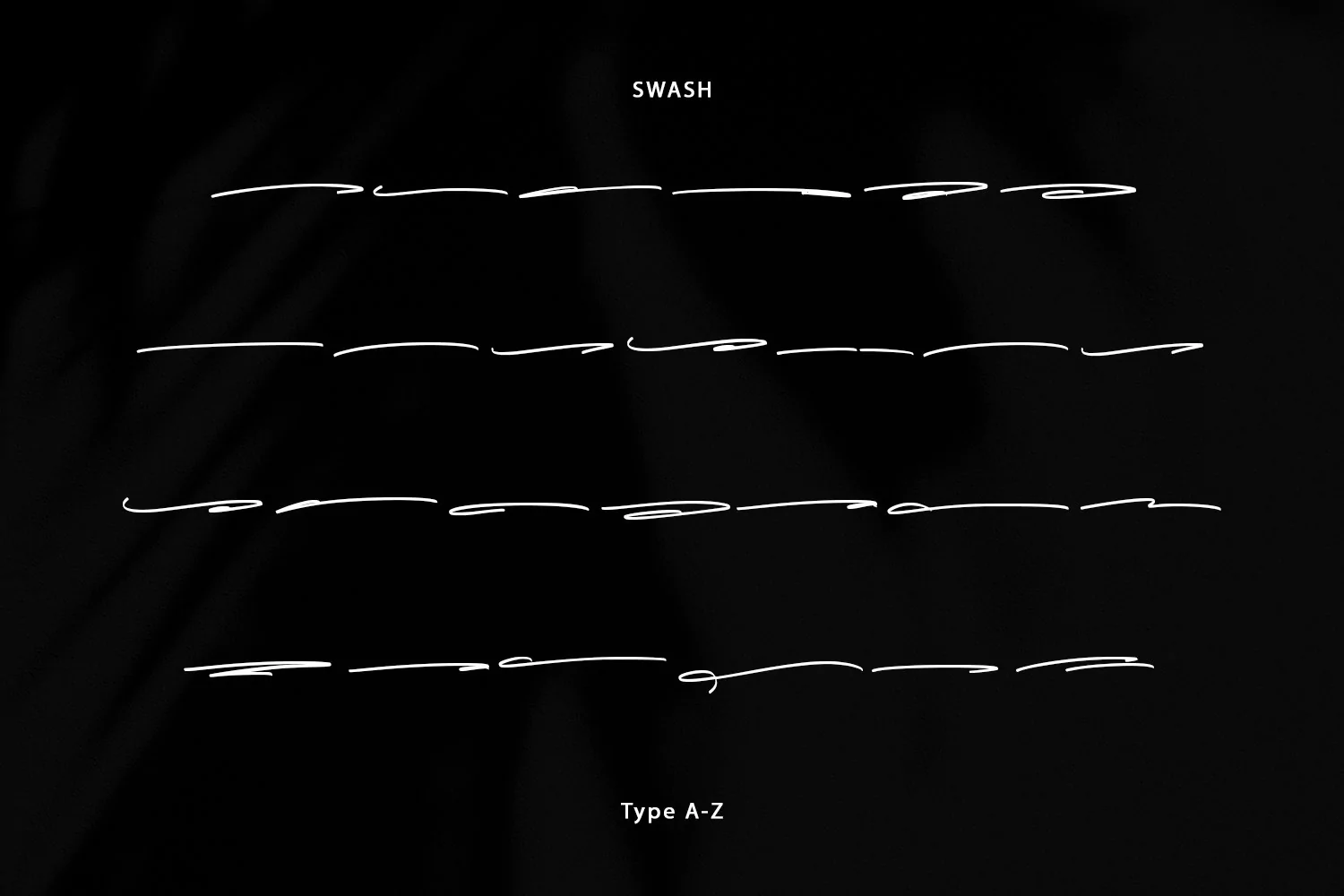
Rosestaly is casual signature script font, with clean stroke, slant and fun character. It has Opentype features ligatures of character and swashes, To give you an extra creative work. Rosestaly signature font support multilingual more than 100+ language. This font is good for logo design, Social media, Movie Titles, Books Titles, a short text even a long text letter and good for your secondary text font with sans or serif. Make a stunning work with Rosestaly font.